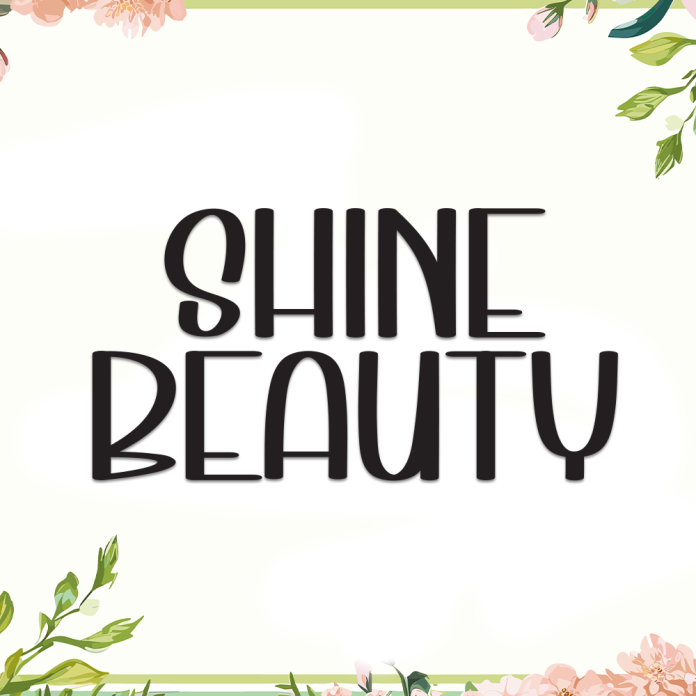
Shine Beauty is a charming and graceful display font that radiates elegance and sophistication. With its sleek curves and stylish flair, this font is designed to bring beauty and shine to any visual project.
Perfect for branding, beauty products, packaging, magazine headlines, fashion logos, and wedding invitations, Shine Beauty offers a polished and luxurious look that stands out with class.
Elegant and modern display style
Stylish uppercase and lowercase characters
Perfect for fashion and lifestyle themes
Supports multilingual characters
Let your designs shine with the refined charm of Shine Beauty.